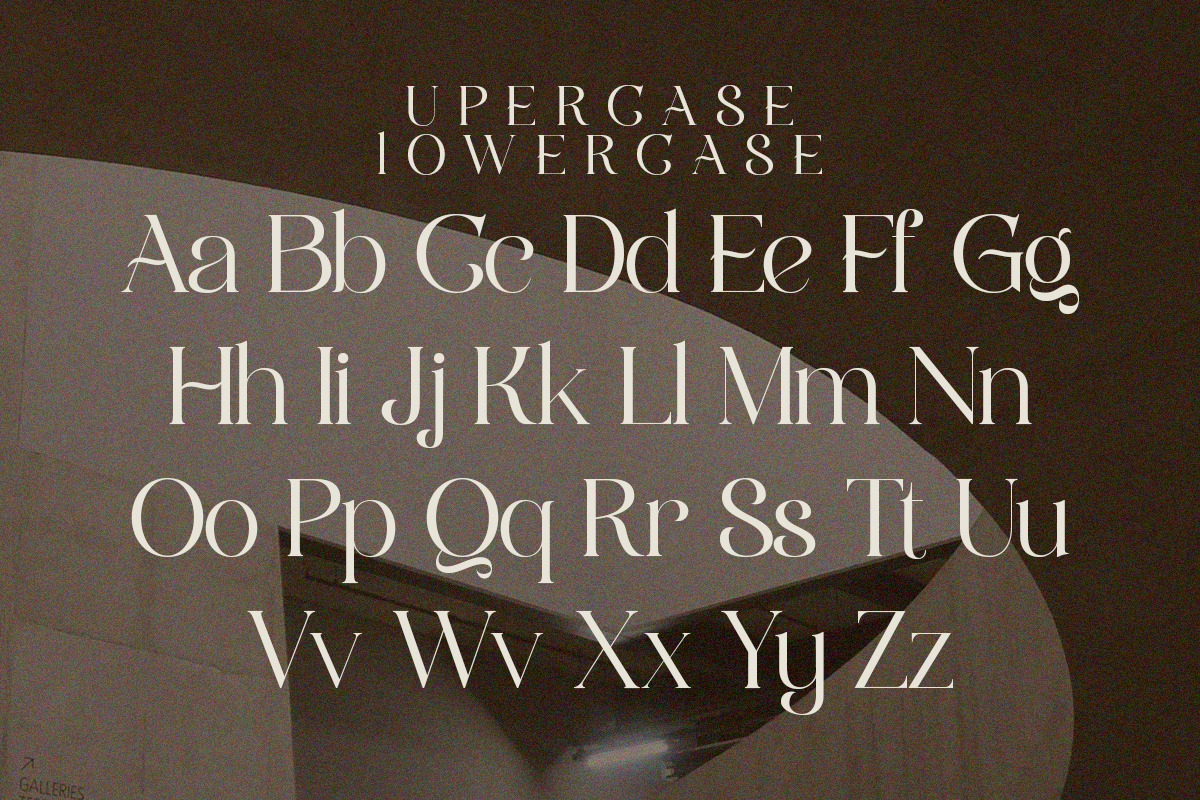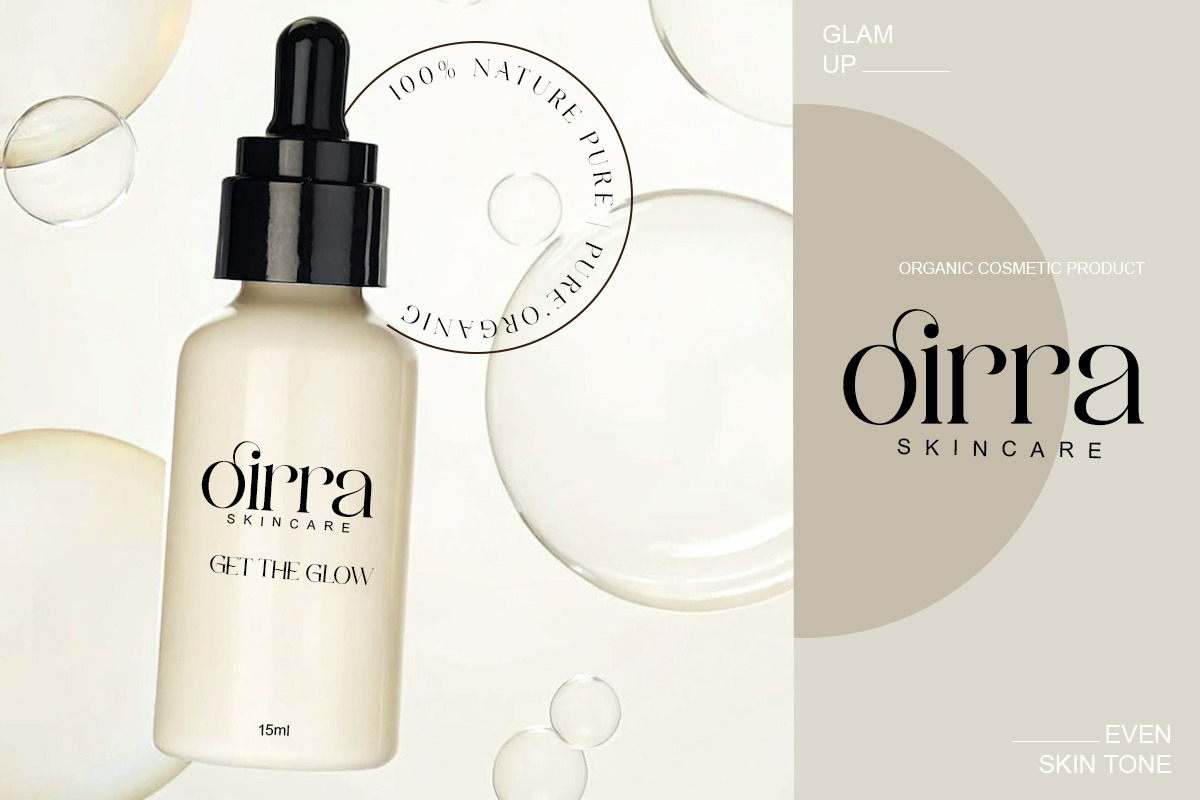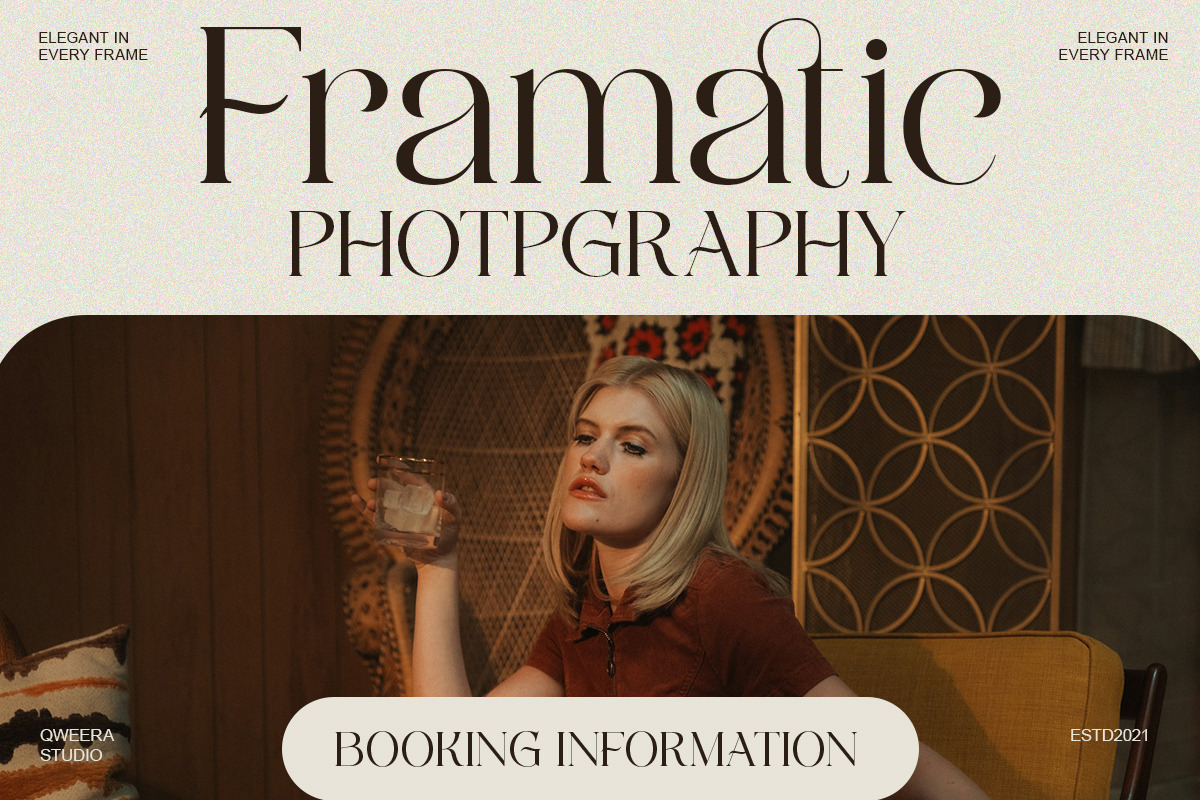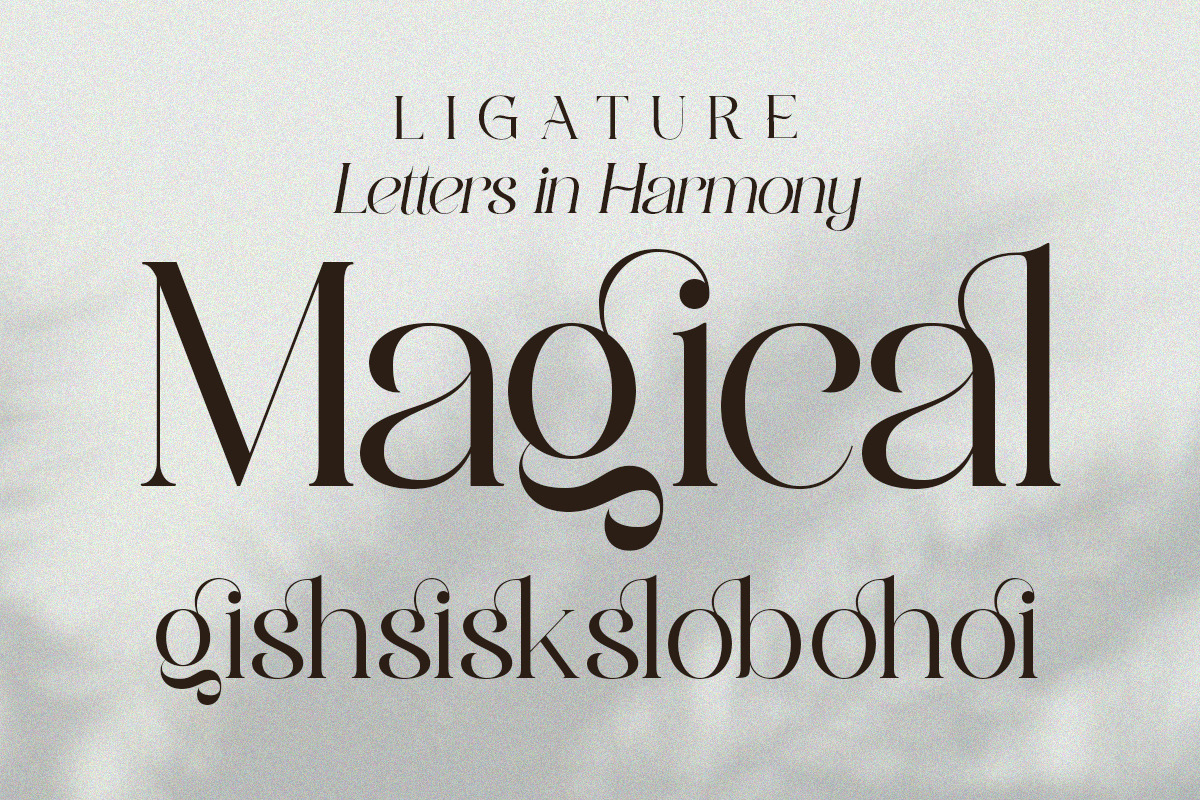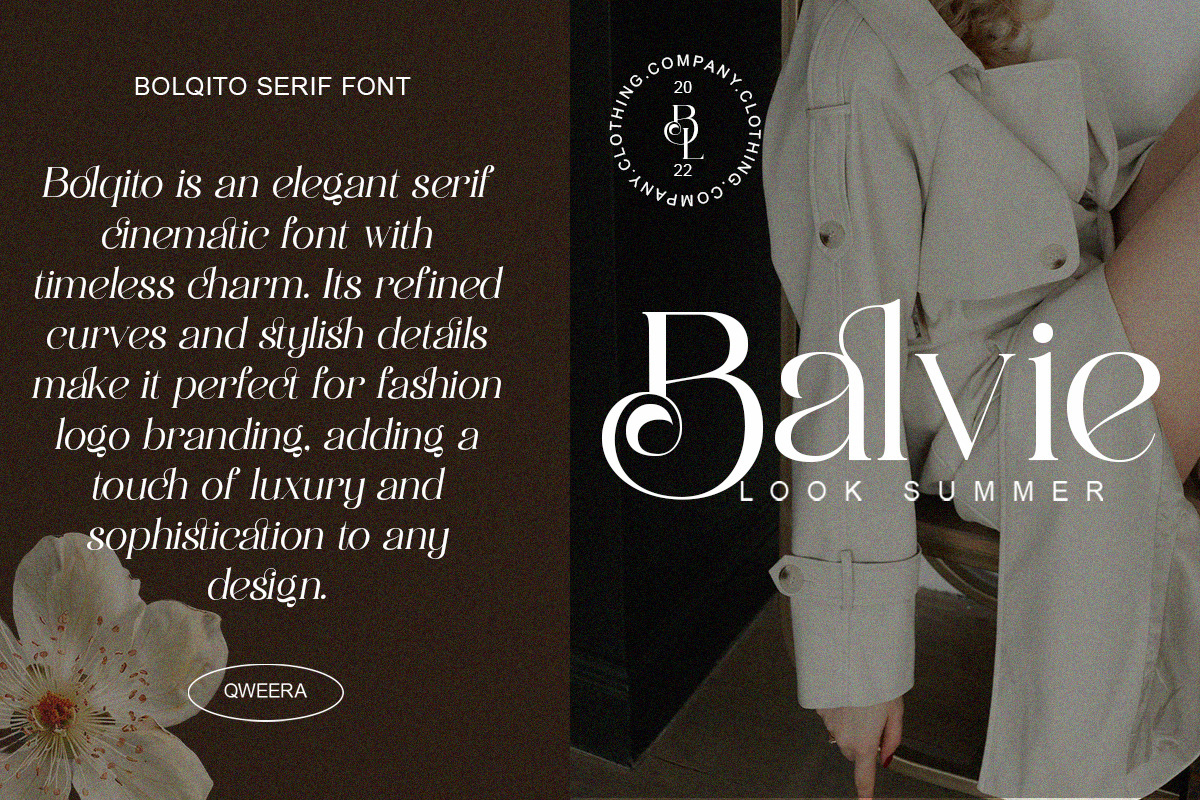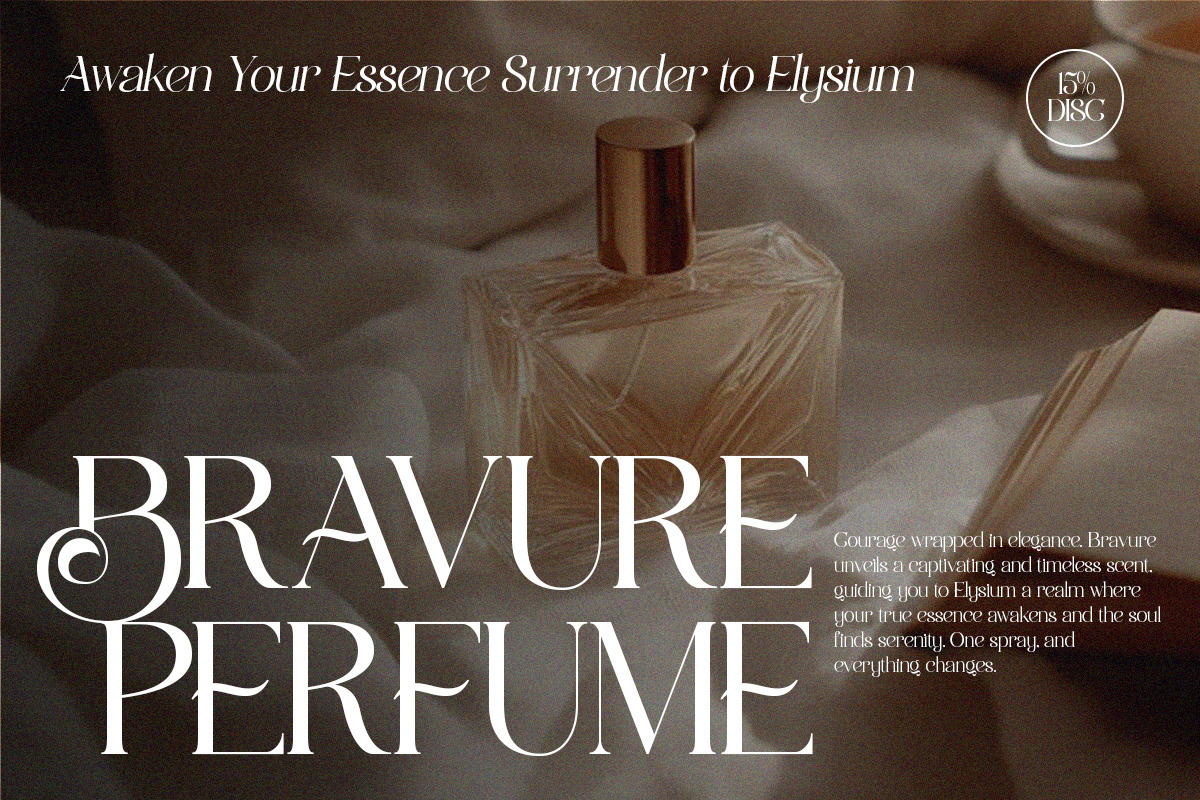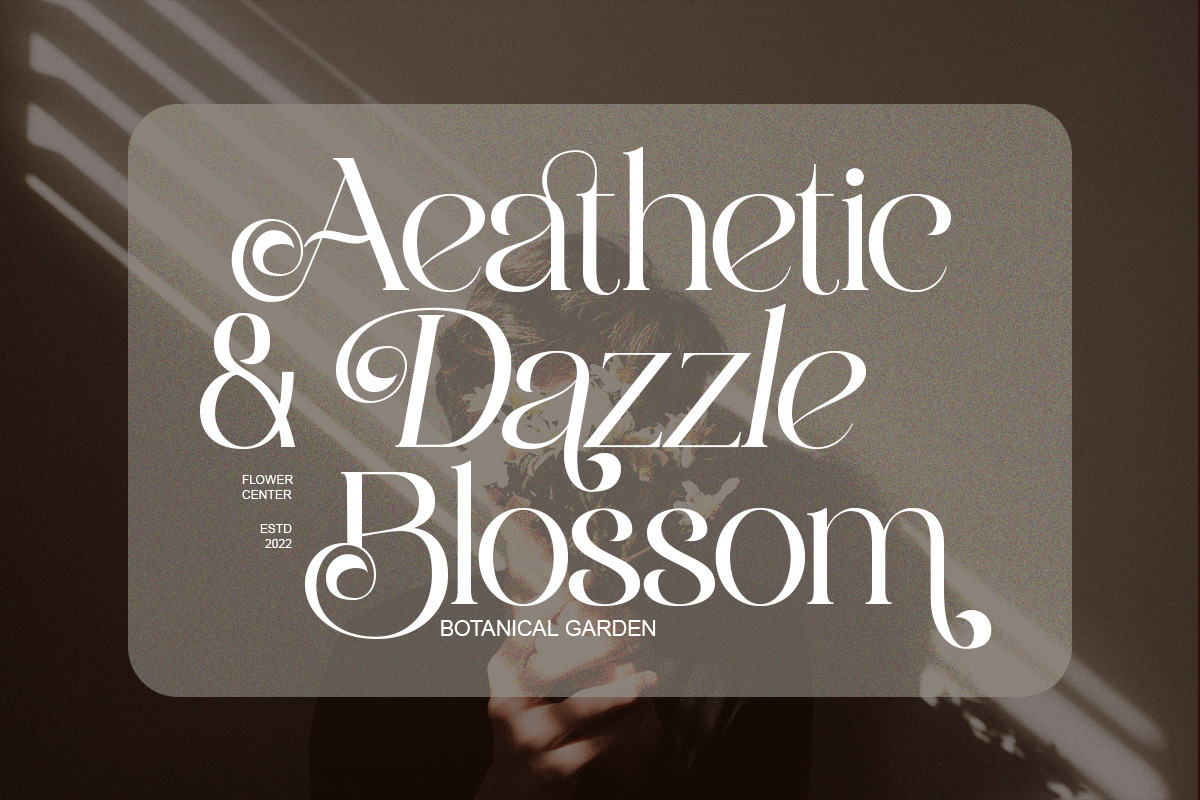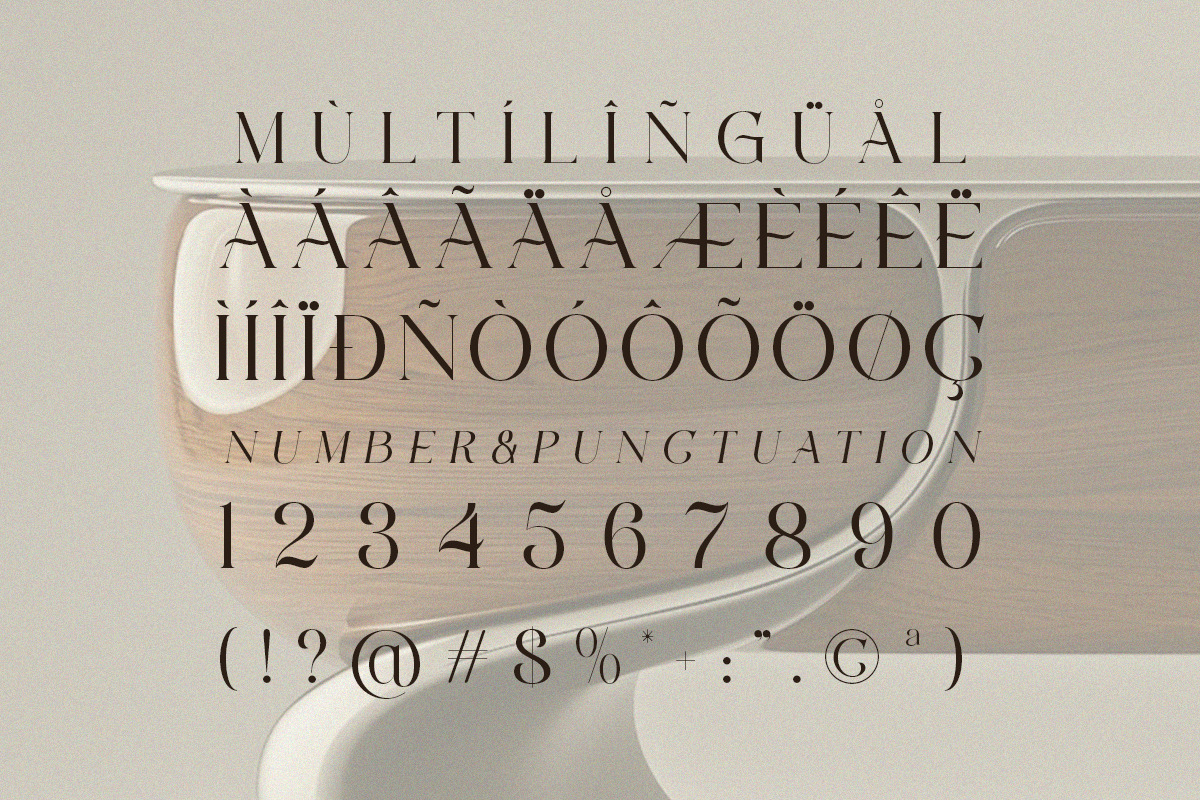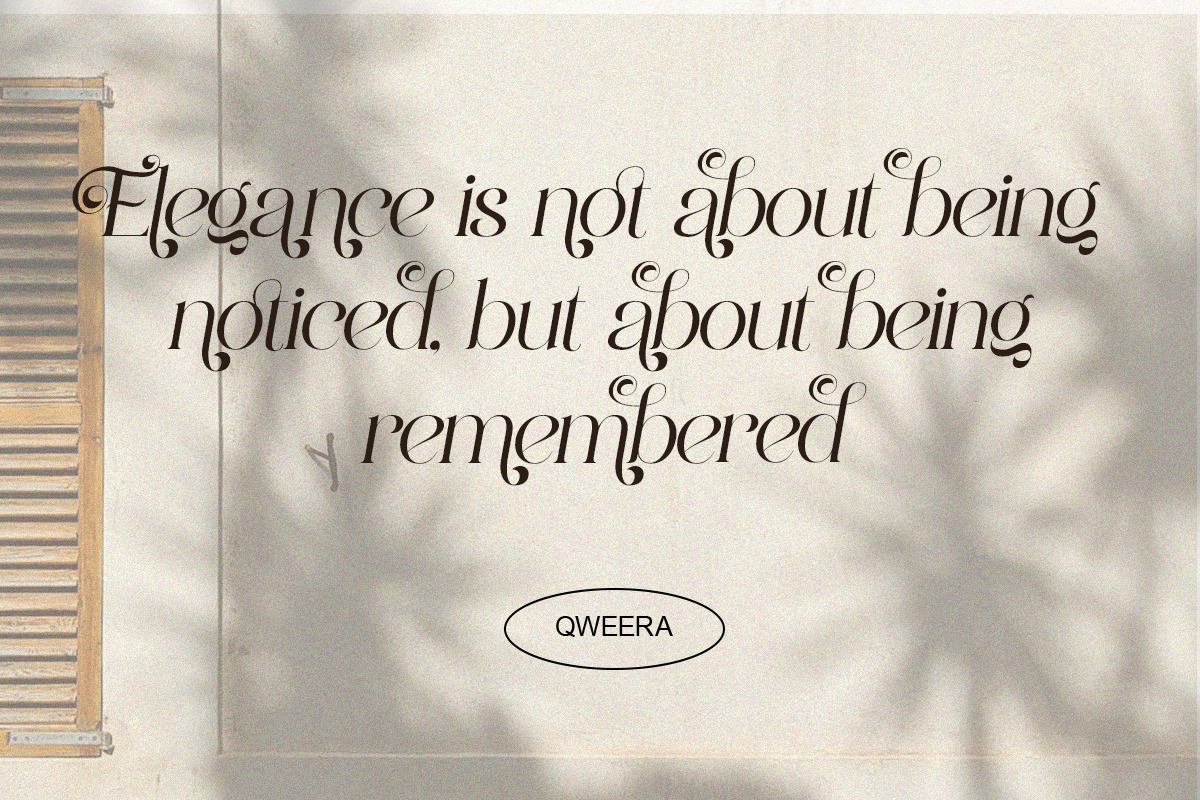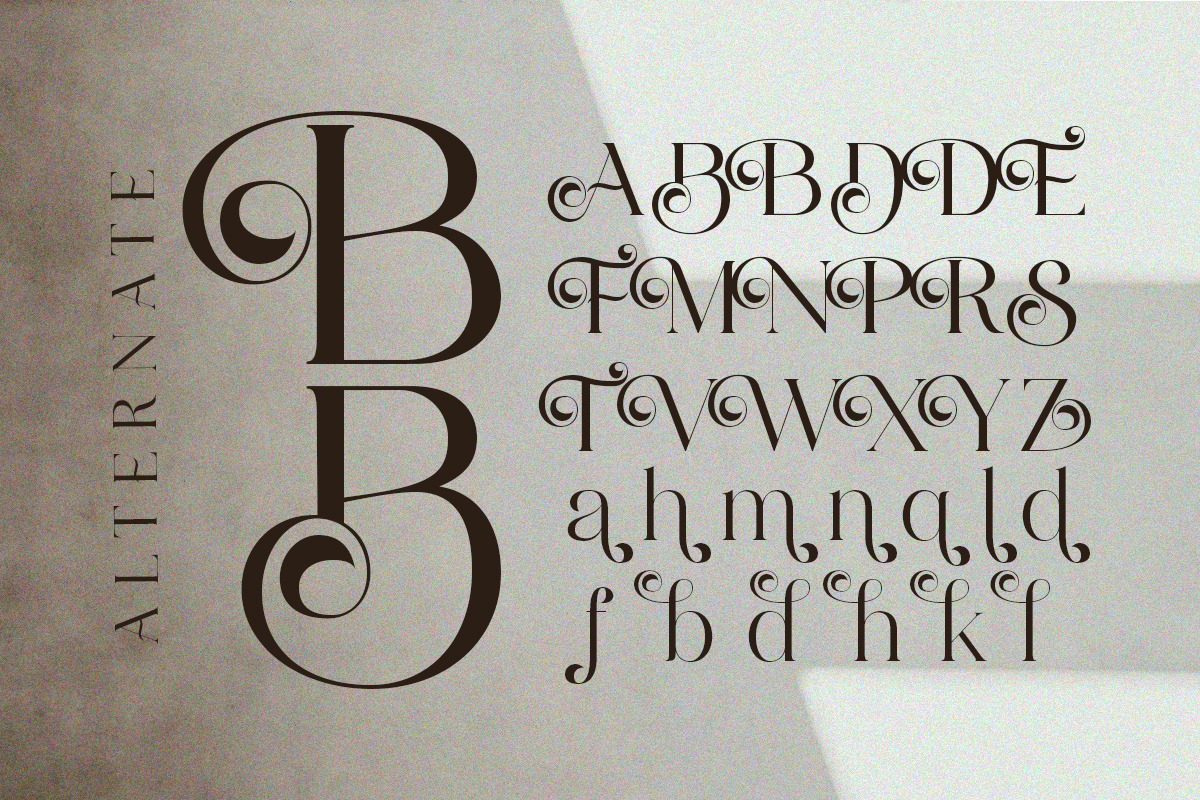
Bolqito - Elegant Luxury Serif Font
Introducing Bolqito – a refined luxury serif typeface with timeless beauty and elite sophistication. Crafted with sleek curves, modern contrast, and artistic ligatures, Bolgito radiates premium aesthetics that speak class, elegance, and high fashion appeal.
Specially designed for upscale branding and editorial design, Bolqito is the go-to font for logos, packaging, fashion campaigns, and refined typographic statements.
It’s not just a font — it’s a symbol of elevated taste.
- All caps & lowercase
- Regular & Italic
- Numerals & punctuation
- Discretionary ligatures
- Elegant alternates & smooth kerning
- Luxury branding & logos
- Fashion magazines & editorial spreads
- Perfume packaging & cosmetics
- Invitations & wedding stationery
- High-end product design
- Boutique identity & style lookbooks
Bolqito is where elegance meets modern simplicity — designed to impress at every level.